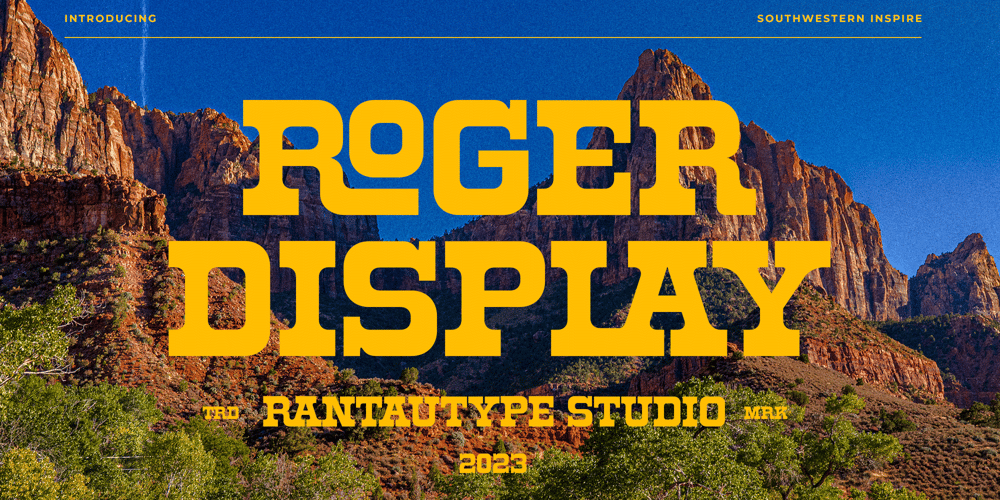
Roger Display Font Family was designed by Yudi Pratama Chandra and published by RantauType. Roger Display contains 2 styles and family package options. design. This fun font can be use for retro and modern design. Roger display support dozens of languages which use the Latin and Greek alphabets.Roger Display – separate in reguler and italic, is a beautiful choice for any creative endeavor, creating fun, modern, chic, lifestyle design such as logos, title, cover, branding, display and magazine, and more. Now you have more choice when using Roger Display to make amazing design.Features: 2 Font ( reguler and italic ) Standar character A-Z and a-z Numberial and Functional Alternate and Ligature Works on PC & Mac Simple installations Accessible in Adobe Illustrator, Adobe Photoshop, Adobe InDesign, even work on Microsoft Word. Fonts include Multilingual Support for: Afrikaans, Albanian, Asu, Basque, Bemba, Bena, Breton, Chiga, Cornish, Dutch, English, Estonian, Filipino, Finnish, Friulian, Galician, Gusii, Indonesian, Irish, Italian, Kabuverdianu, Kalenjin, Kinyarwanda, Luo, Luxembourgish, Luyia, Machame, Makhuwa-Meetto, Makonde, Malagasy, Manx, Morisyen, North, Ndebele, Nyankole, Oromo, Portuguese, Quechua, Romansh, Rombo, Rundi, Rwa, Samburu, Sango, Sangu, Scottish, Gaelic, Sena, Shambala, Shona, Soga, Somali, Spanish, Swahili, Swedish, Swiss, German.Thank you for your purchase!Hope you enjoy with our font!